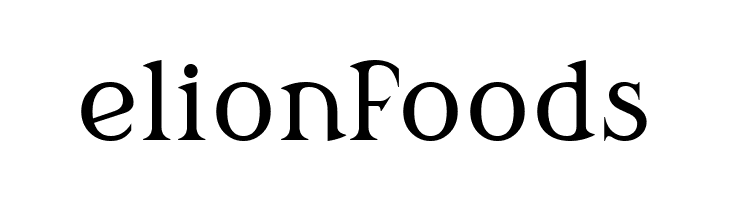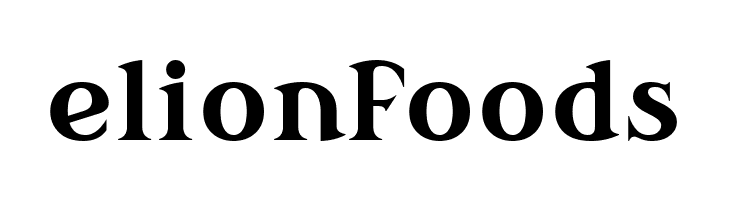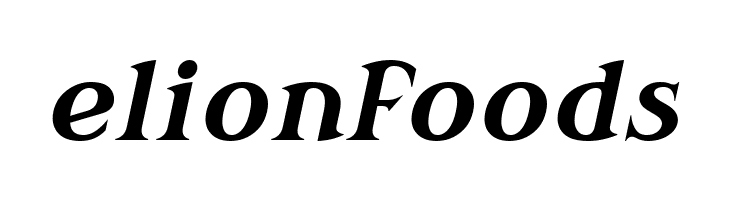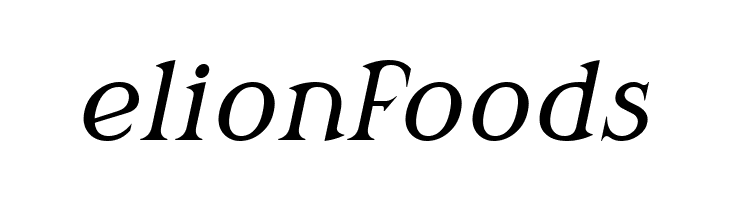
A classic serif typeface with a modern touch, featuring elegant serifs and balanced proportions.
A bold, modern serif font with classic influences and strong character presence.
A bold, oblique serif font with a modern-antique blend.
A modern oblique font with classic elegance and moderate stroke contrast.